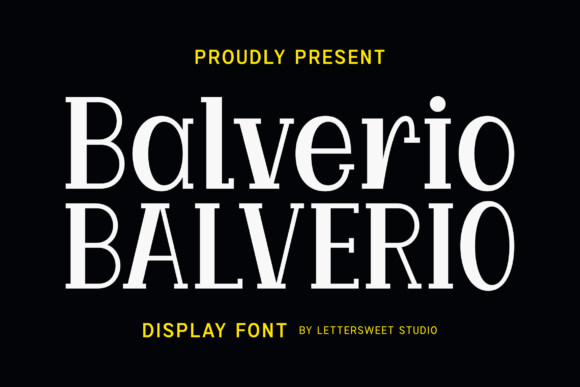
Timeless Elegance: The Power of Balverio Font
Have you ever stared at a beautifully crafted logo and wondered what made it stand out from the crowd? Perhaps it was the way the letters seemed to dance on the page, or the confident, authoritative tone that screamed ‘premium’ and ‘exclusive.’ For designers looking to create that same wow factor, the Balverio Font is an elegant display serif font that’s sure to deliver.
With its refined contrast, sharp details, and balanced proportions, Balverio Font is built to make a statement – not for long paragraphs, but for headlines, branding, logos, and editorial layouts where first impressions matter. This font is a game-changer for designers seeking to create a professional, confident, and luxurious visual identity.
Key Features of Balverio Font
- Unique Characteristics: Balverio Font features a unique blend of modern and classic elements, with a distinctive flair that sets it apart from other fonts.
Designer Review: Balverio Font
Overall, I was pleasantly surprised by the Balverio Font. It’s a great addition to any designer’s toolkit, offering a range of styles that can be used to create engaging and modern designs.
- Unique blend of modern and traditional elements, making it suitable for a wide range of applications.
- Highly legible and clear, even at smaller font sizes.
- Good support for multiple languages, including many non-Latin scripts.
- Lack of bold or condensed versions, which can limit its use in certain situations.
- Not ideal for use in situations where a highly stylized font is required.
- Some users may find the font too minimalist or lacking in personality.
Overall, I think the Balverio Font is a solid choice for designers who want a reliable and versatile font that can be used in a variety of situations. While it may not be the most exciting or innovative font on the market, it gets the job done and is a great value for the price.
For best results, use Balverio Font in combination with bold or italic text to create emphasis.
Use Balverio Font for titles, headings, and other attention-grabbing text elements.